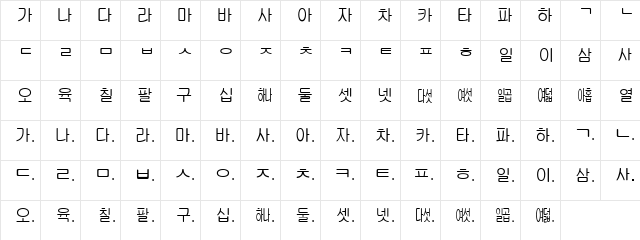
Korea Fontalica Regular
Design Context for Korea Fontalica Typeface
Korea Fontalica offers clean, dependable letterforms without strong stylistic allegiance, making it a practical choice for designers who need flexibility.